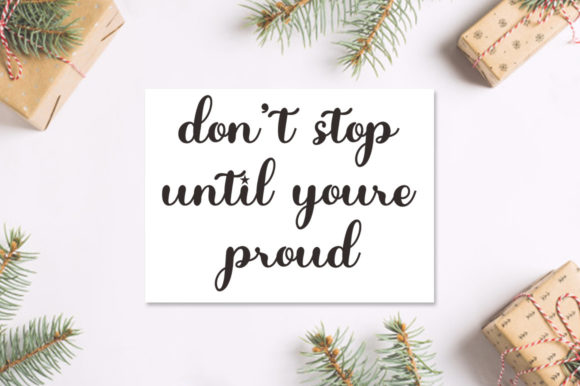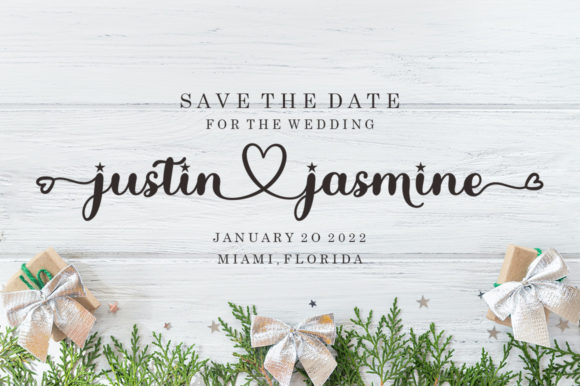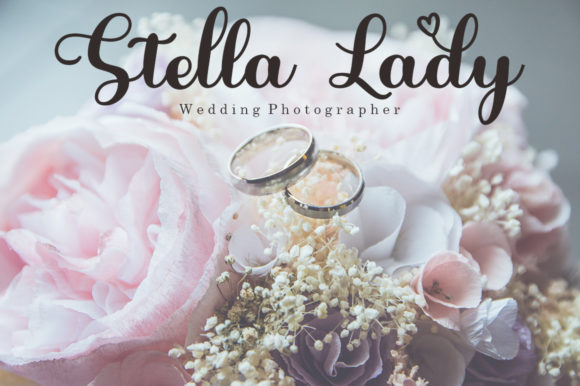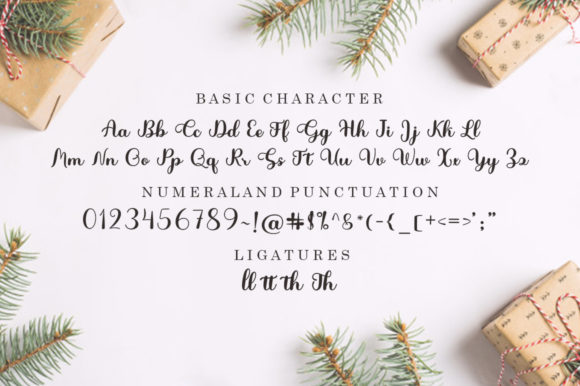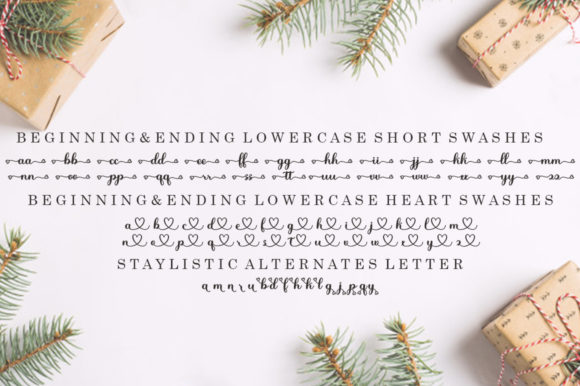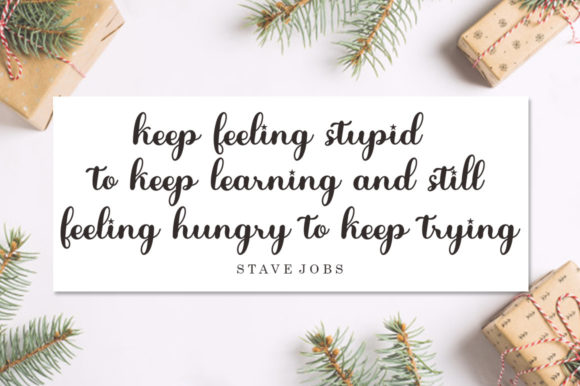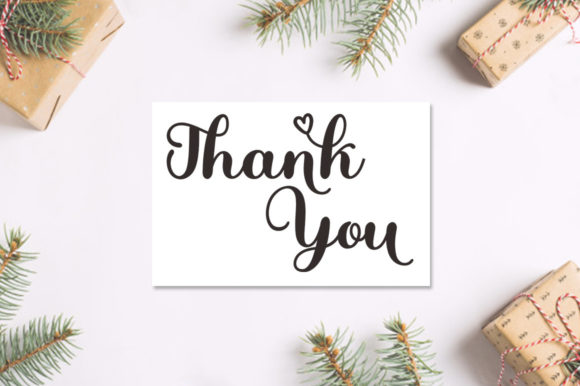
Holly Jolly Font
About Holly Jolly Font
“Holly Jolly” is a romantic and sweet calligraphy typeface that adds a joyful and whimsical touch to your designs. With its playful and flowing characters that dance along the baseline, this font captures the spirit of joy and celebration.
One of the highlights of “Holly Jolly” is its PUA encoding, which allows you to easily access a wide range of amazing glyphs and ligatures. These additional design elements and decorative touches add versatility and creativity to your projects. You can effortlessly create unique and eye-catching typography by exploring the various glyphs and ligatures available in the font.
The romantic nature of “Holly Jolly” makes it a perfect choice for creating wedding invitations, love letters, and other romantic-themed designs. The elegant and fluid strokes of the letters exude a sense of romance and sophistication, adding a touch of elegance to your creations. It is also well-suited for holiday-themed designs, especially during the festive season, as it captures the joyful and celebratory spirit of the holidays.
The playful and whimsical style of “Holly Jolly” lends itself well to a variety of design projects. Whether you’re creating greeting cards, social media graphics, branding materials, or any other design that needs a touch of charm, this font will bring your ideas to life. Its lively and animated appearance adds a sense of fun and excitement to your designs, making them stand out and leave a lasting impression.
With “Holly Jolly,” you can infuse your designs with the warmth and cheer of the holiday season, or create a romantic and enchanting atmosphere for special occasions. Let the characters of this calligraphy typeface dance along the baseline and bring a sense of joy and beauty to your designs.
In summary, “Holly Jolly” is a romantic and sweet calligraphy typeface that adds a touch of joy and whimsy to your designs. Its PUA encoding allows for easy access to a variety of glyphs and ligatures, providing you with creative possibilities. Whether you’re designing for weddings, holidays, or any other occasion, let “Holly Jolly” bring a romantic and joyful flair to your projects.